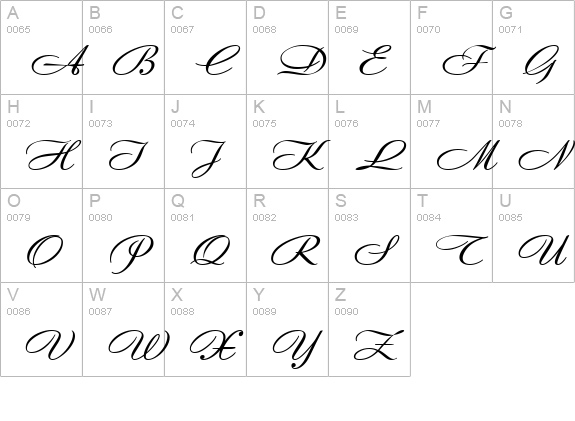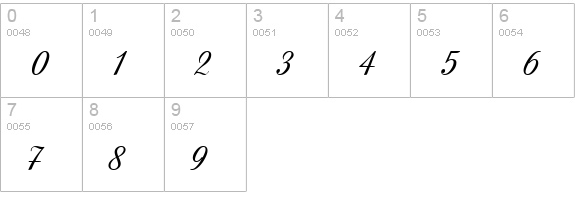
Andantino script Font Details
Andantino script font is a beautiful and elegant typeface that exudes sophistication and charm. With its flowing lines and graceful curves, Andantino is perfect for adding a touch of class to any design project. Whether you're creating wedding invitations, branding materials, or anything in between, this font will elevate your work to the next level. What sets Andantino apart is its versatility - it can be used for both formal and casual designs, making it a truly versatile addition to your font collection. The script style adds a touch of whimsy and personality, while still maintaining a sense of refinement and elegance. And the best part? Andantino script font is completely free to download at FontsMarket.com. So you can add this stunning typeface to your library without breaking the bank. Don't miss out on this opportunity to enhance your design projects with the beauty of Andantino script font. Download it today and let your creativity soar!